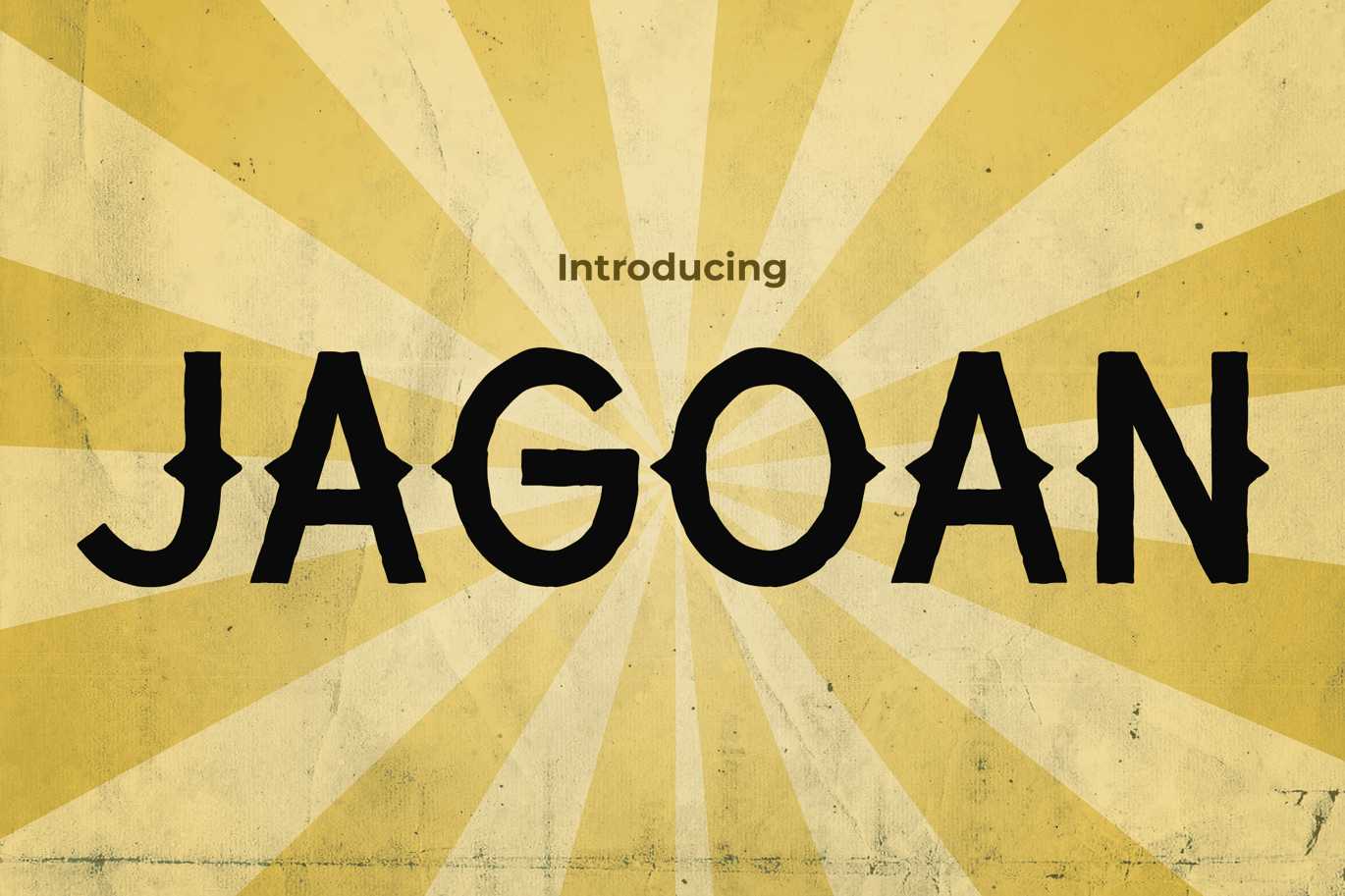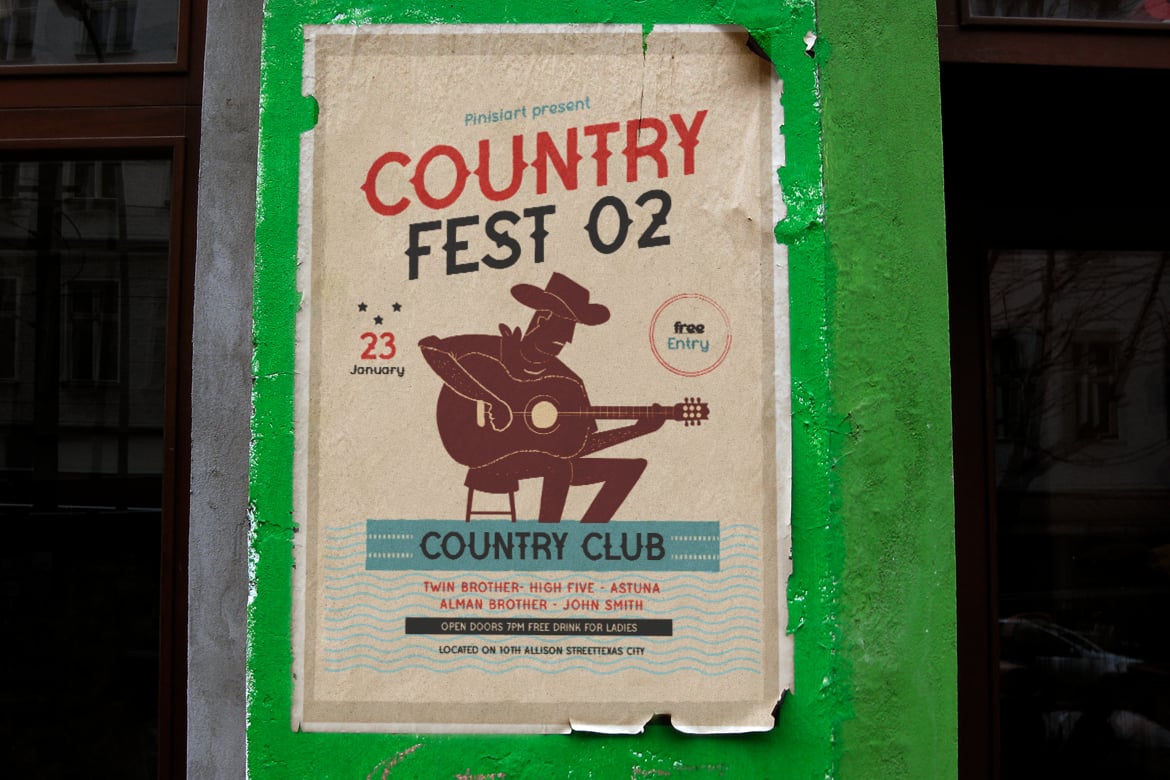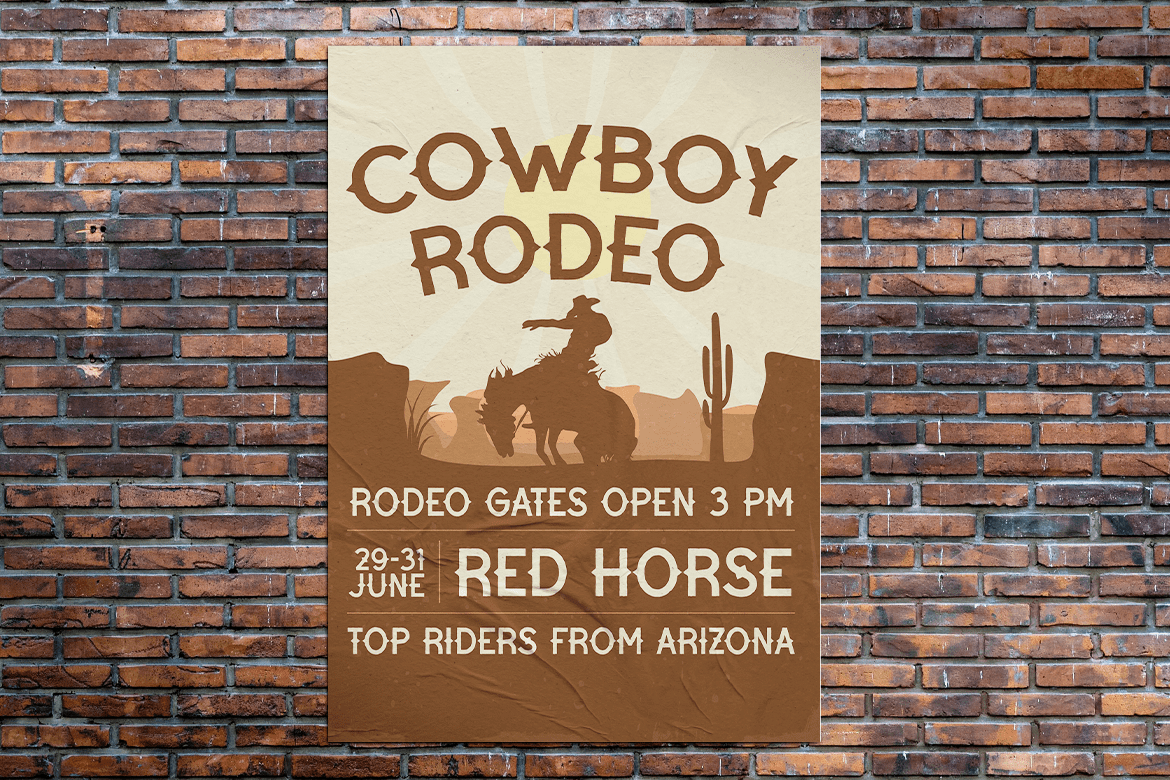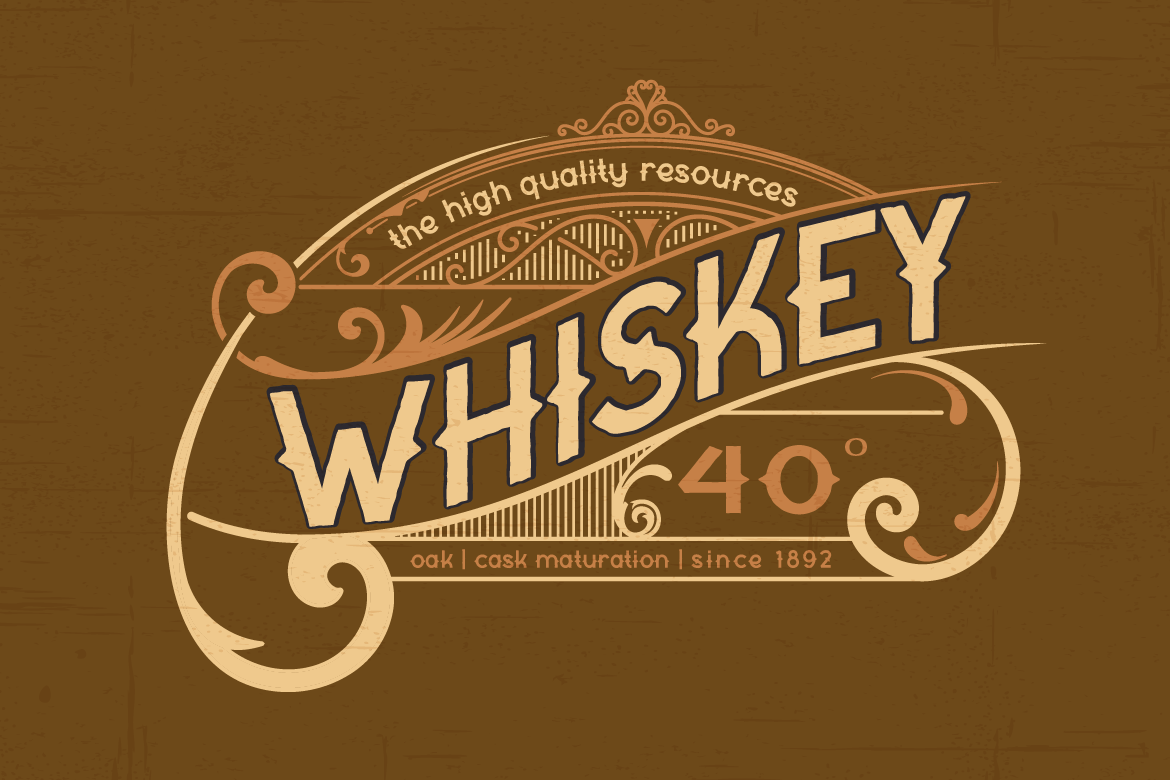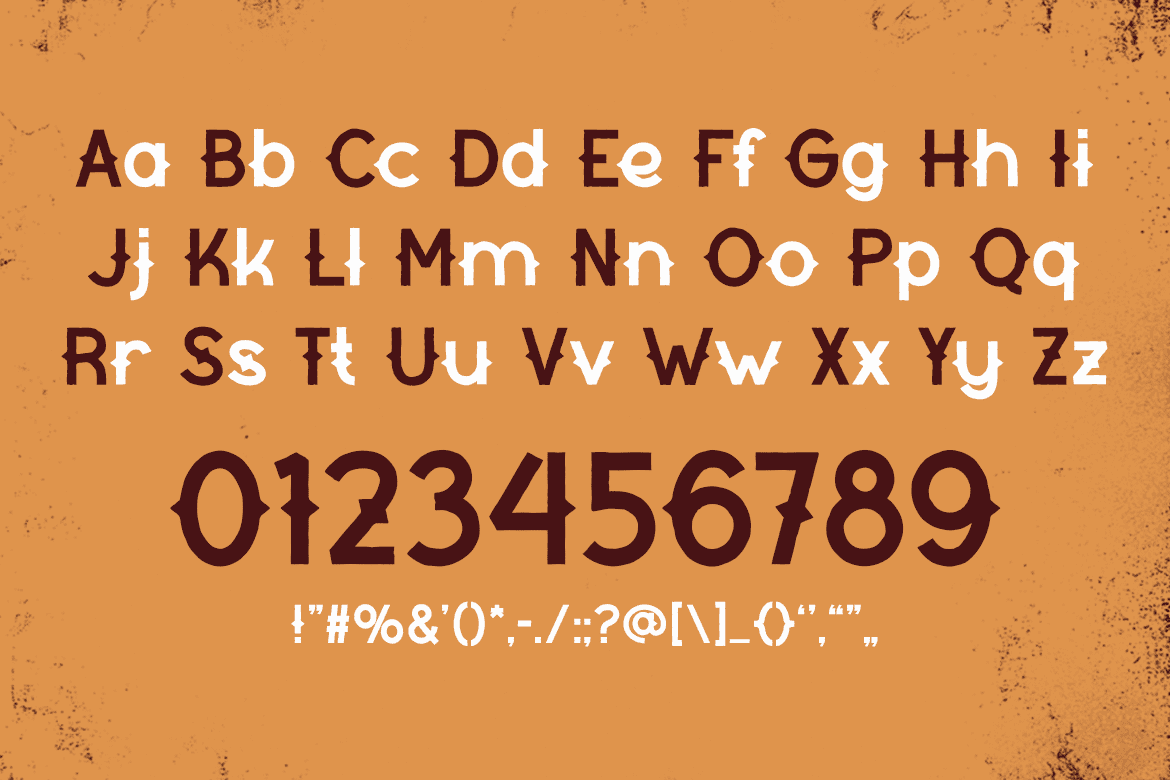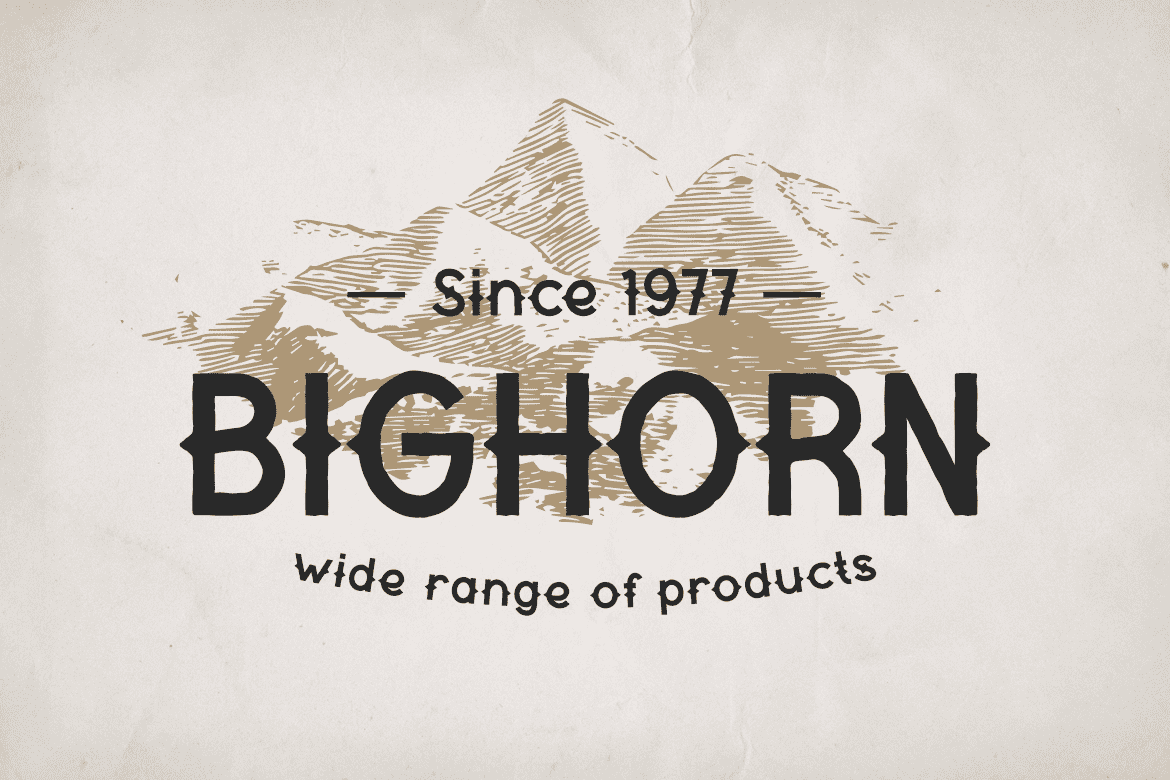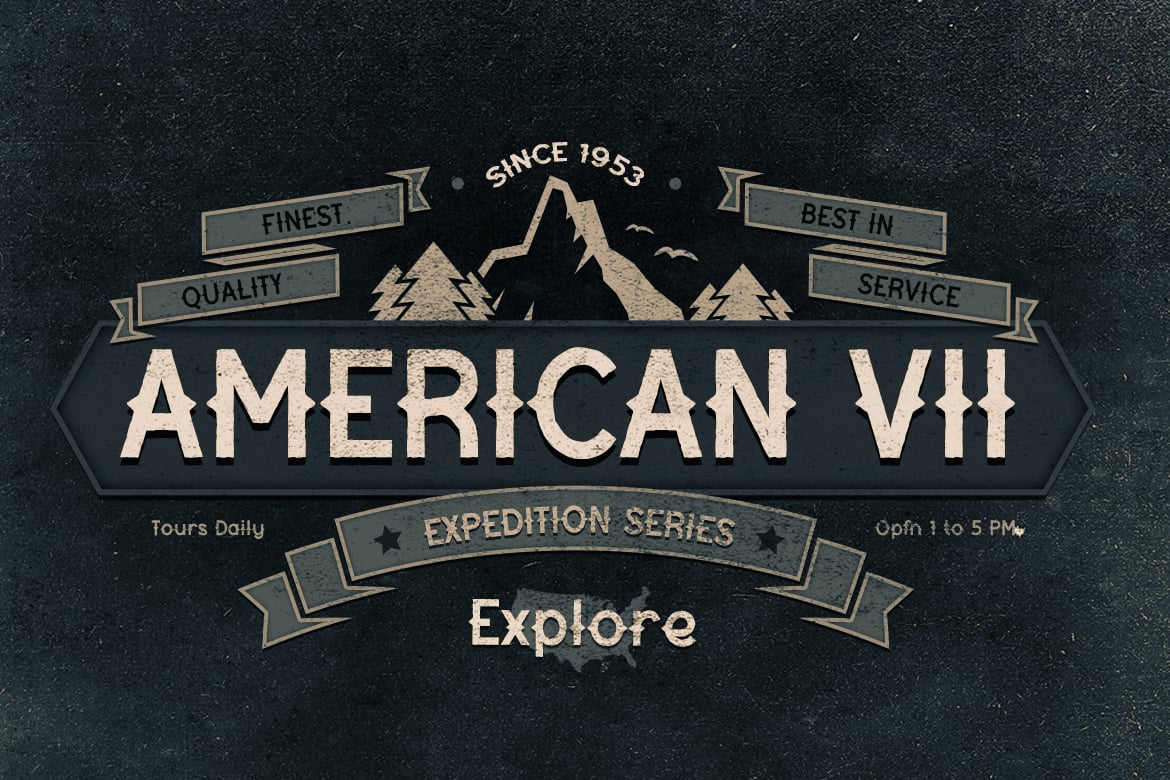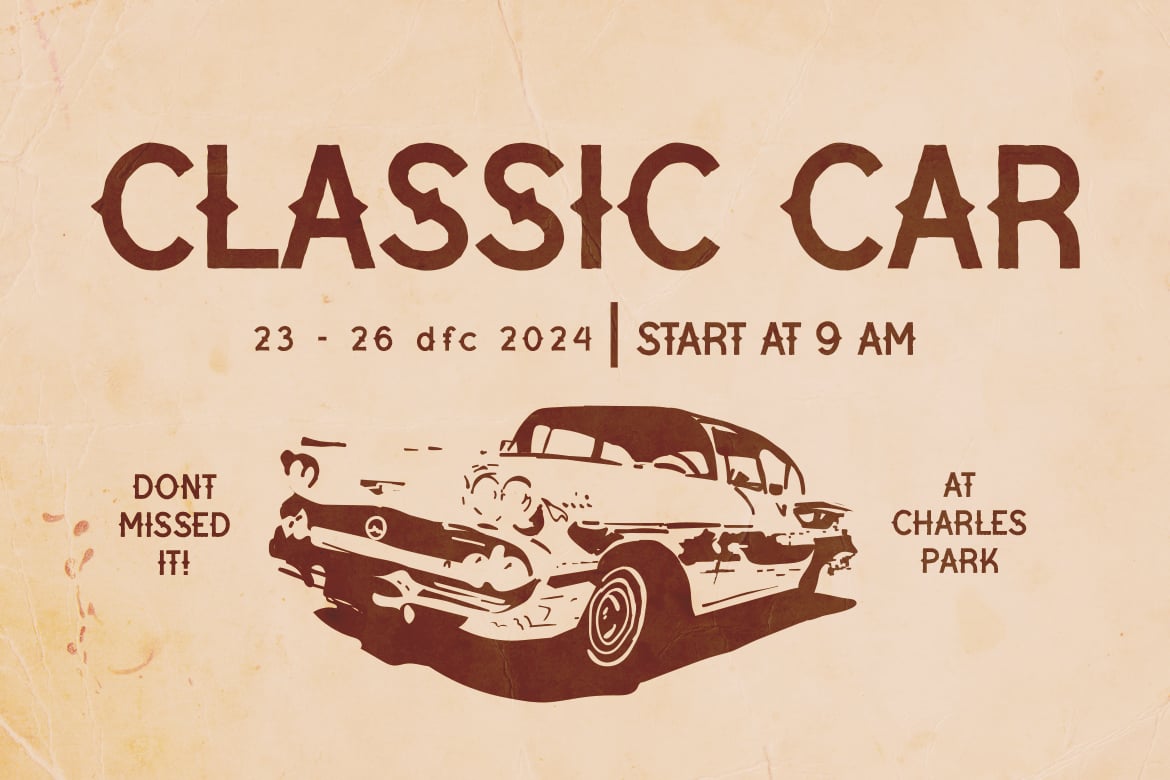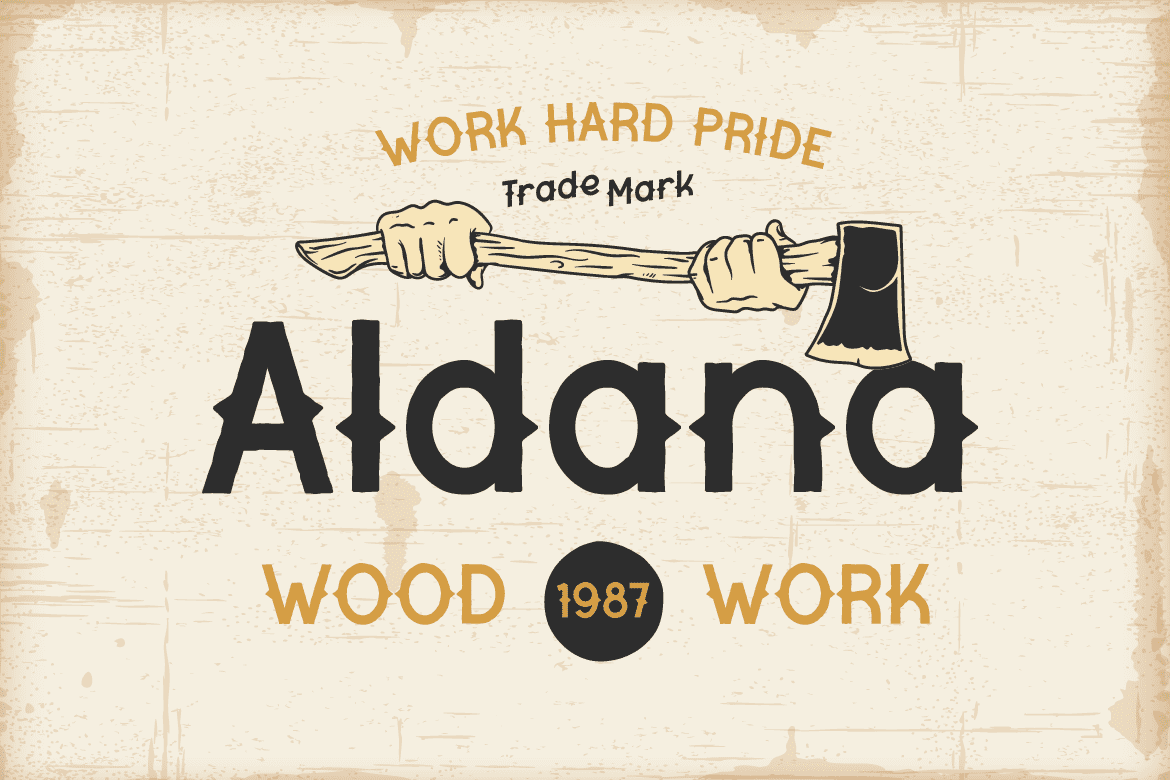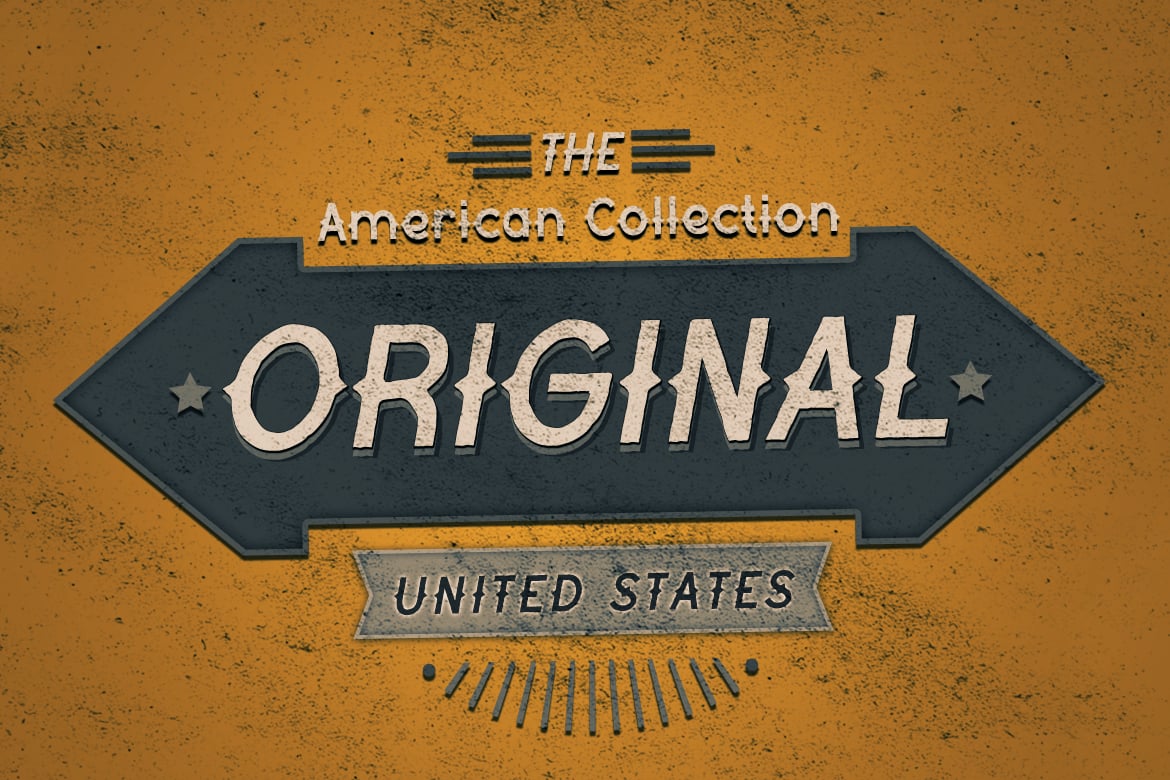
Jagoan – Spirit of the Cowboy Font
Jagoan is a font that embodies the rugged boldness of the cowboy era, blending Western charm with retro flair to capture the essence of the Wild West. Designed to bring a sense of adventure and frontier spirit to your projects, Jagoan is perfect for creating logos that stand out with an authentic Western style. Its distinctive Wild West aesthetics make it ideal for enhancing quotes with a touch of historical bravado and crafting invitations that promise an event filled with rustic allure. Whether you’re designing posters, greetings, or branding, Jagoan adds a unique character that’s both memorable and impactful. For packaging, covers, and advertising, this font ensures your designs will capture and hold the audience’s attention, evoking the untamed beauty of cowboy culture.